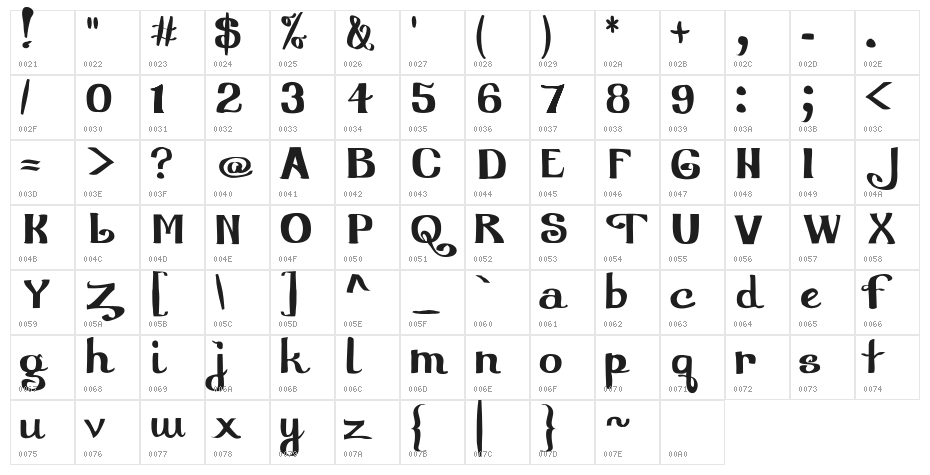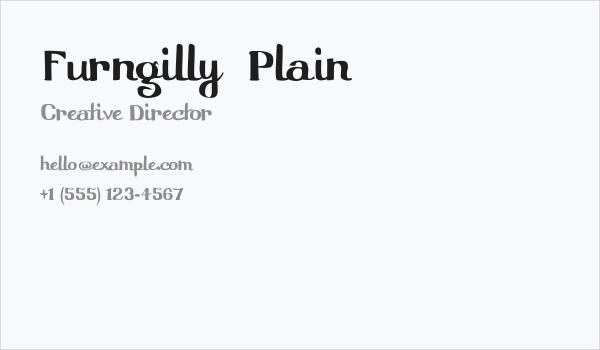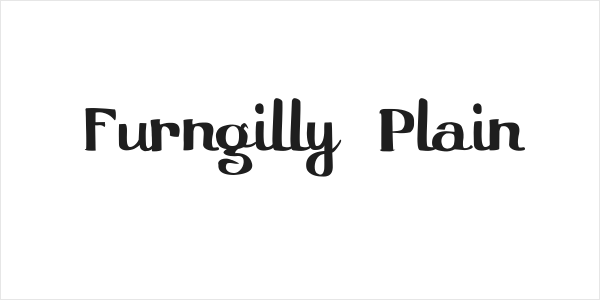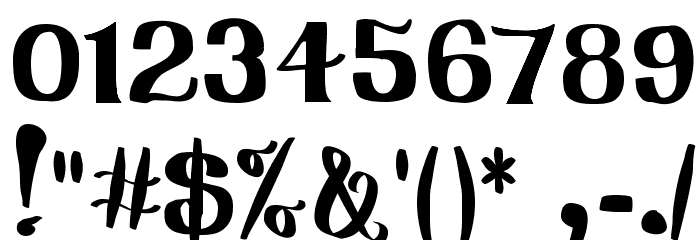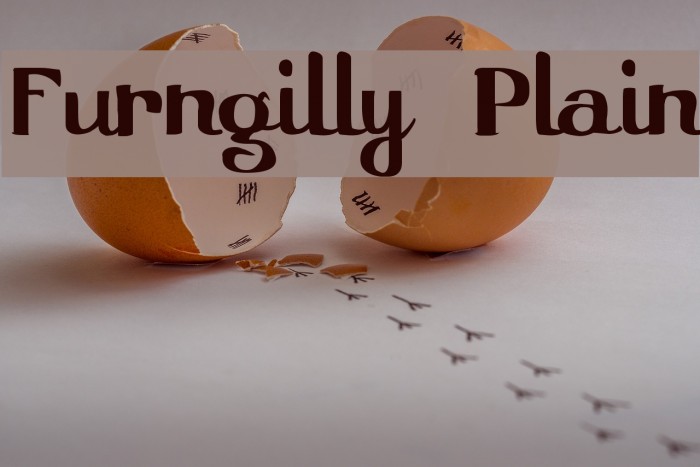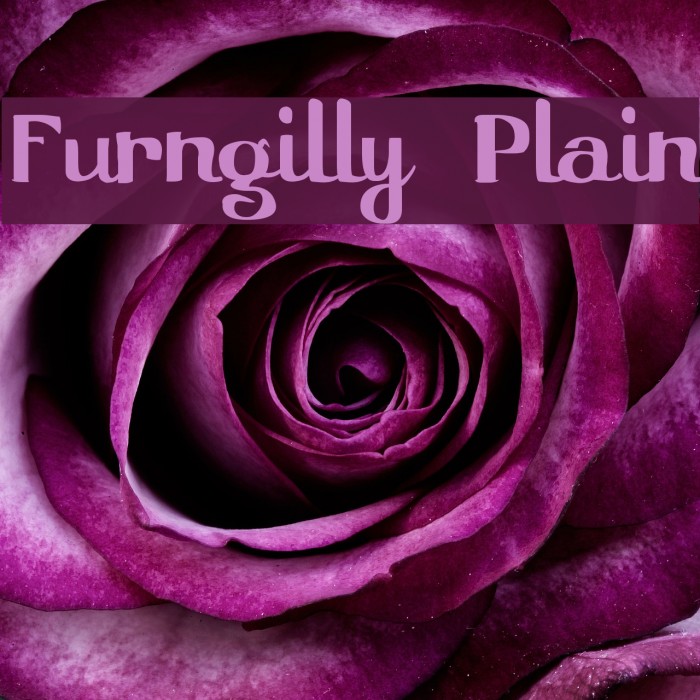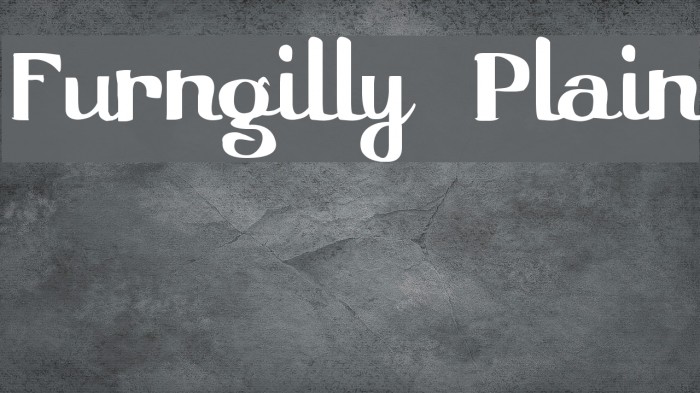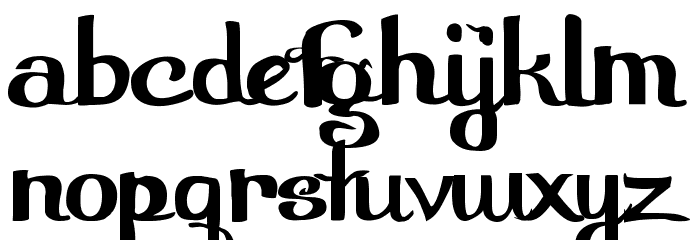
Furngilly Plain Font
Furngilly Plain Description
This font features a whimsical and decorative style with playful curls and swirls integrated into the letterforms. The uppercase letters are bold and striking, with unique embellishments that add a sense of movement and flair. The lowercase letters maintain the same decorative elements, creating a cohesive and artistic look. The numbers are bold and consistent with the overall style, ensuring readability while maintaining the font's playful nature. Special characters are creatively designed, adding to the font's charm and versatility. This font is perfect for projects that require a touch of creativity and fun.
| Proposed Projects | Ideal for children's books, playful branding, invitations, and creative posters. |